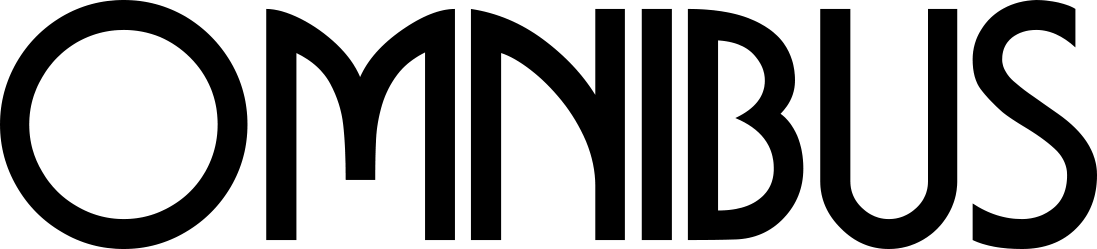
Omnibus Font
Designed byAlan Carr
This Art Deco font has this round personality. It has an American 40s or 50s classical look, like something you would see on NYC buildings those days.